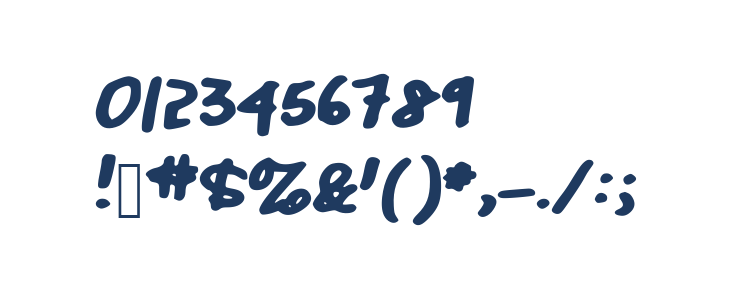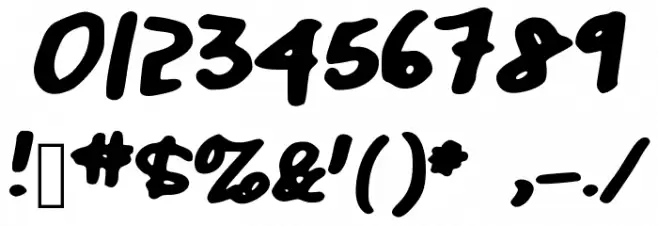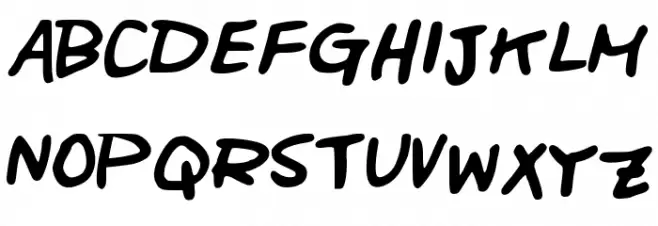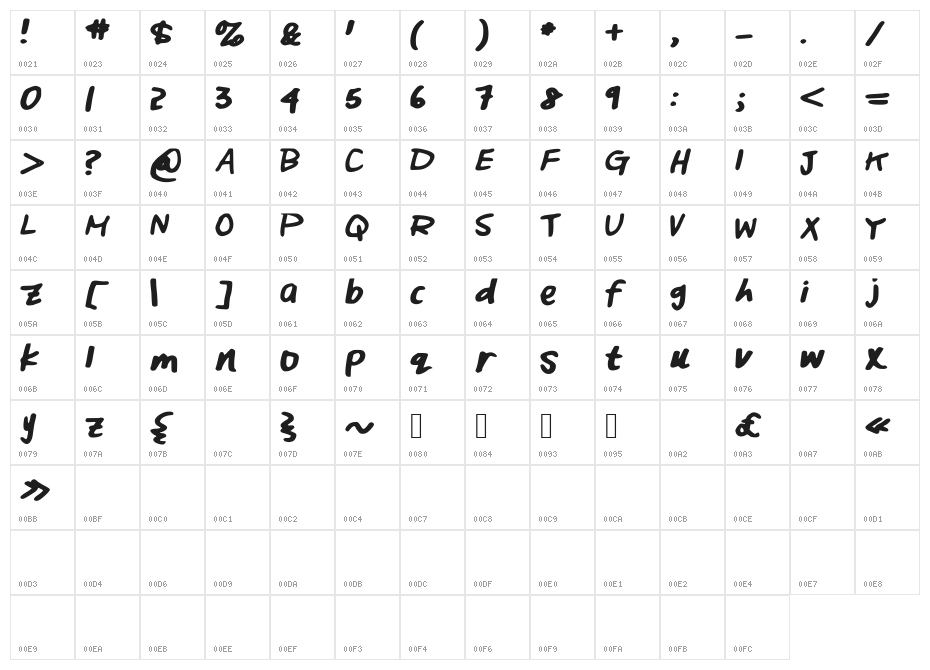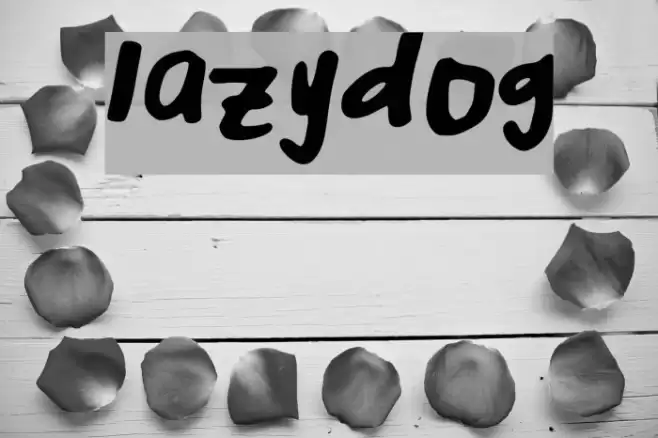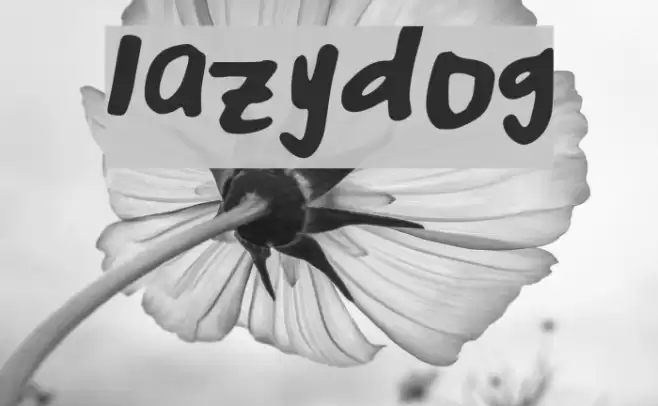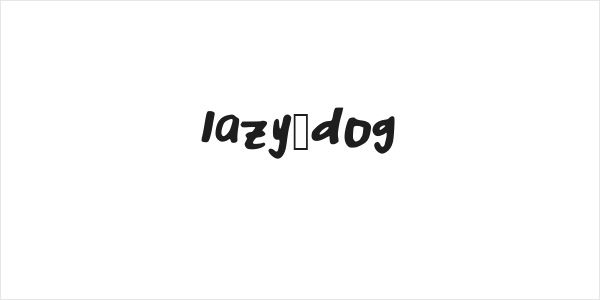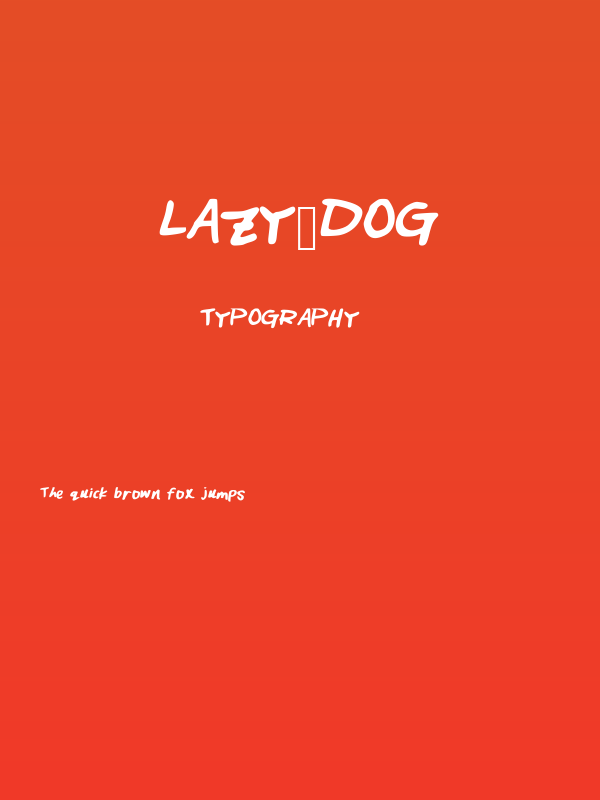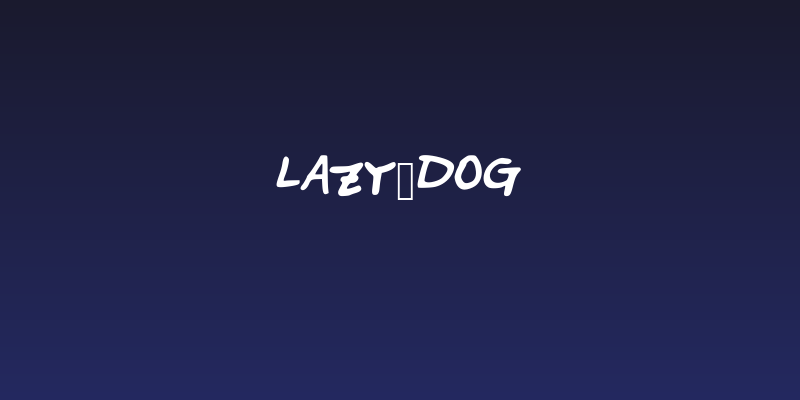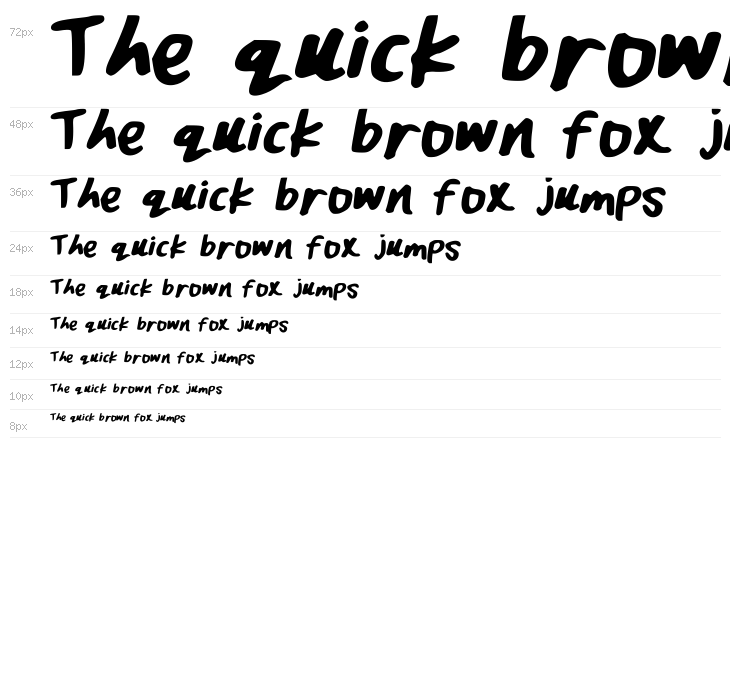
lazy_dog Font
lazy_dog Description
This font features a playful and informal handwritten style, characterized by its bold and rounded letterforms. The strokes are smooth and consistent, giving it a casual and friendly appearance. The uppercase and lowercase letters maintain a uniform style, with slight variations that add to its charm. Numbers and special characters are equally bold and rounded, ensuring readability and consistency across all characters. The font's overall aesthetic is approachable and lively, making it suitable for projects that require a personal touch.
| Proposed Projects | Ideal for greeting cards, children's books, casual branding, and social media graphics. |